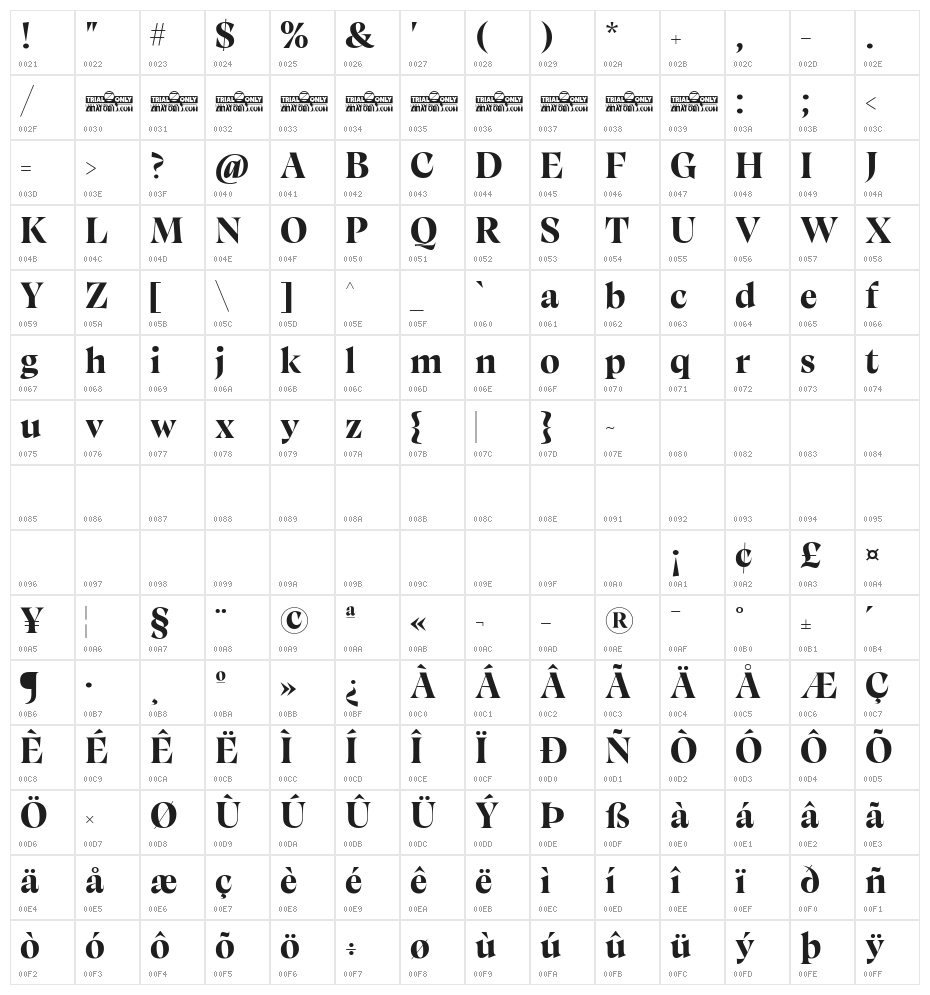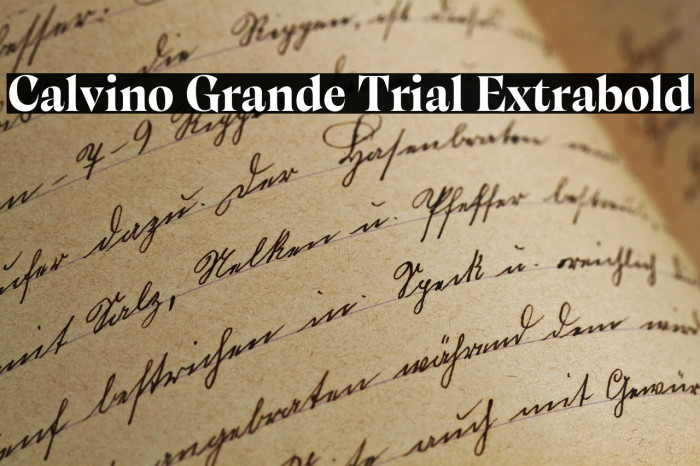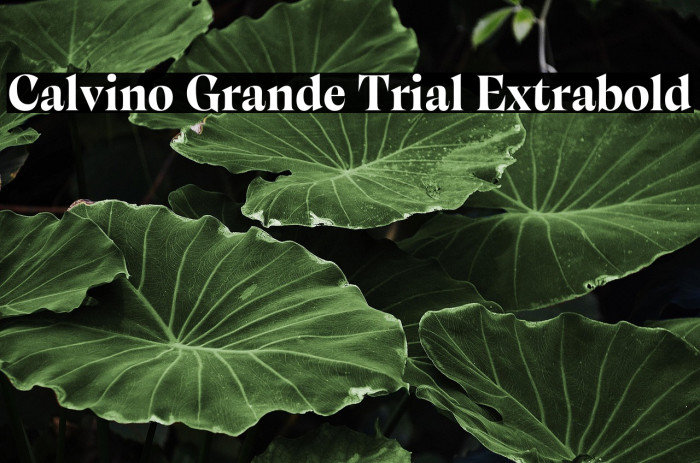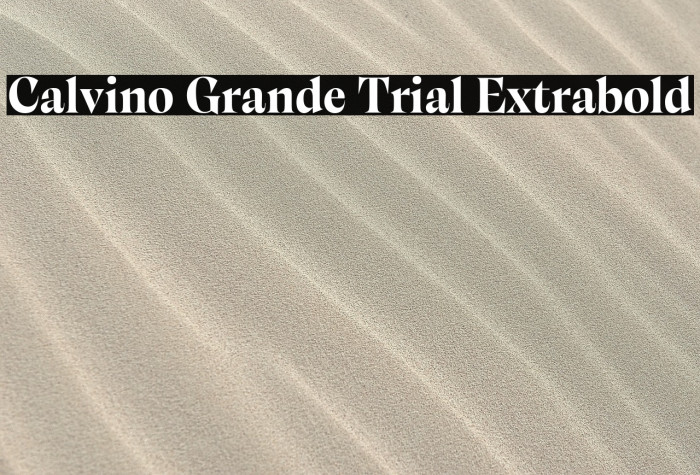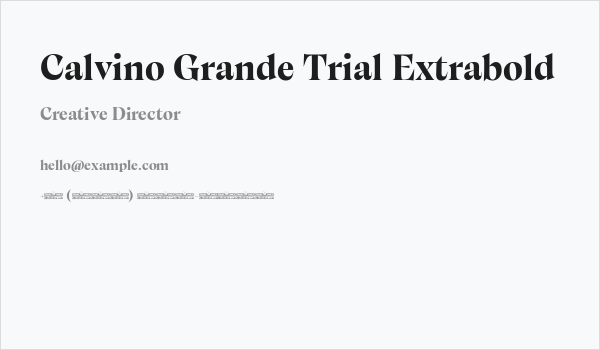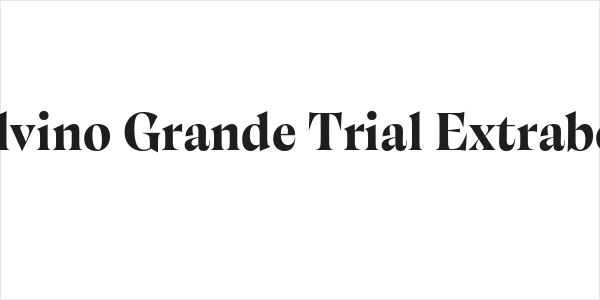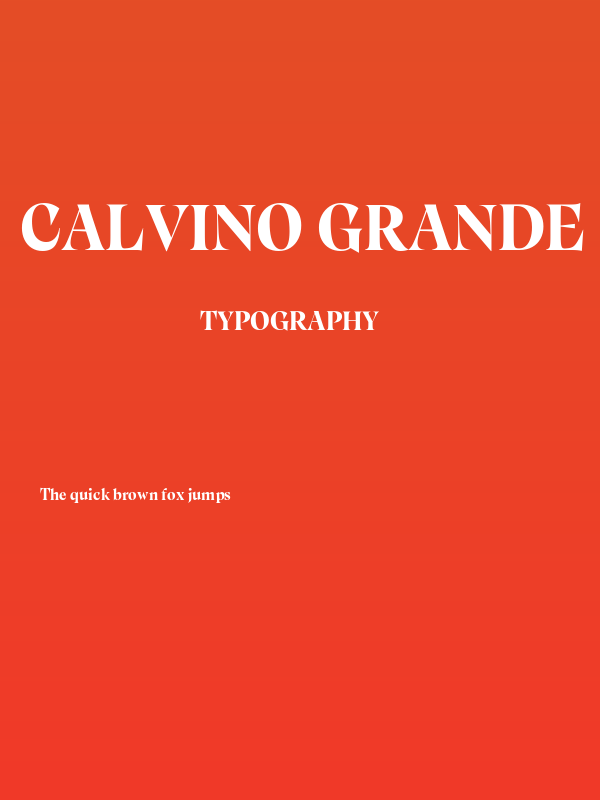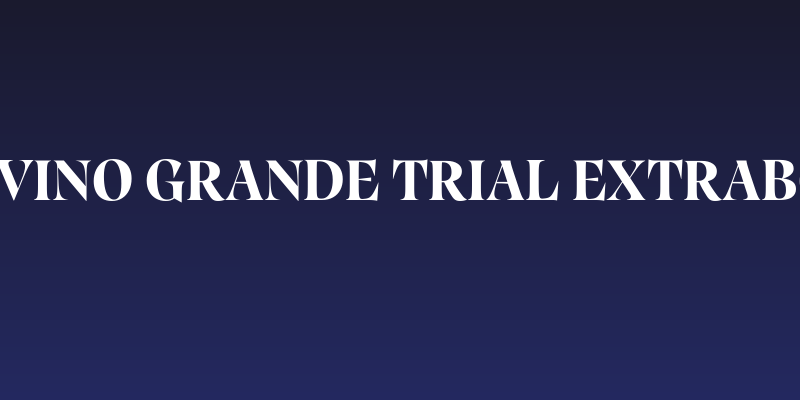
Calvino Grande Trial Extrabold Font
Calvino Grande Trial Extrabold Description
This font exudes a bold and commanding presence with its thick, strong strokes and high contrast between thick and thin lines. The serifs are pronounced, adding a touch of elegance and sophistication, while the overall design maintains a modern feel. The uppercase letters are particularly striking, with sharp angles and a sense of grandeur. The lowercase letters complement the uppercase with a slightly softer approach, yet they retain the boldness that characterizes the entire typeface. The numerals and special characters are designed with the same attention to detail, ensuring consistency throughout. This font is ideal for making a statement, whether in print or digital formats.
| Proposed Projects | Ideal for headlines, branding, posters, and editorial design where a strong, impactful presence is desired. |